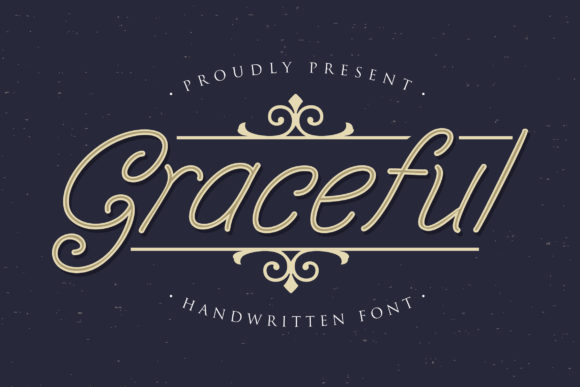
Dive into the world of enchanting scripts with Graceful Font, a creation by storictype. This slender, elegant font family captivates with its delicate strokes and graceful curves, adding a touch of artistry to any design. Experience the allure of handwritten elegance as Graceful Font breathes life into your words, transforming them into visual poetry.
Perfect for those seeking a touch of refinement and allure, Graceful Font unveils a world of creative possibilities. Its delicate design lends itself effortlessly to wedding invitations, greeting cards, and other stationery projects, where its graceful lines dance across the page, leaving an unforgettable impression. Unleash your creativity and craft personalized invitations that reflect your unique style, or design elegant menus that tantalize the senses.
But Graceful Font's versatility extends far beyond the realm of traditional stationery. Its refined charm adds a touch of sophistication to social media posts, making your words stand out in a crowded digital landscape. Capture the attention of your audience with eye-catching graphics and captivating quotes, all brought to life by the enchanting allure of Graceful Font. Let your words take center stage, adorned with the elegance and grace that only this font can provide.
And for those with a passion for self-expression, Graceful Font opens up a world of artistic exploration. Create stunning wall art that transforms your living space into a gallery of handwritten beauty, or design personalized t-shirts and accessories that showcase your individuality. With Graceful Font, your creativity knows no bounds.
So, whether you're a seasoned designer seeking a refined touch or a creative enthusiast yearning for a unique voice, Graceful Font beckons you to embrace its captivating allure. Experience the joy of seamless script and let your words dance with grace upon the page. Graceful Font awaits, ready to elevate your creations to new heights of beauty and elegance.